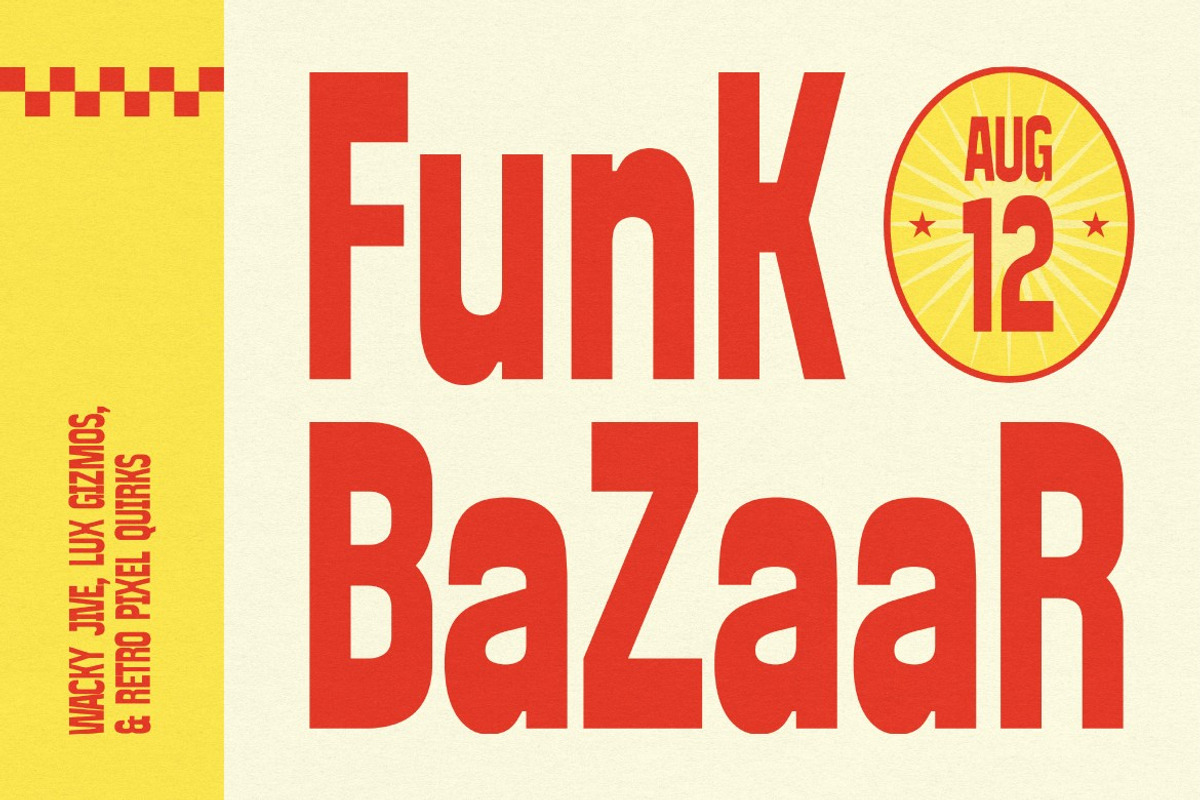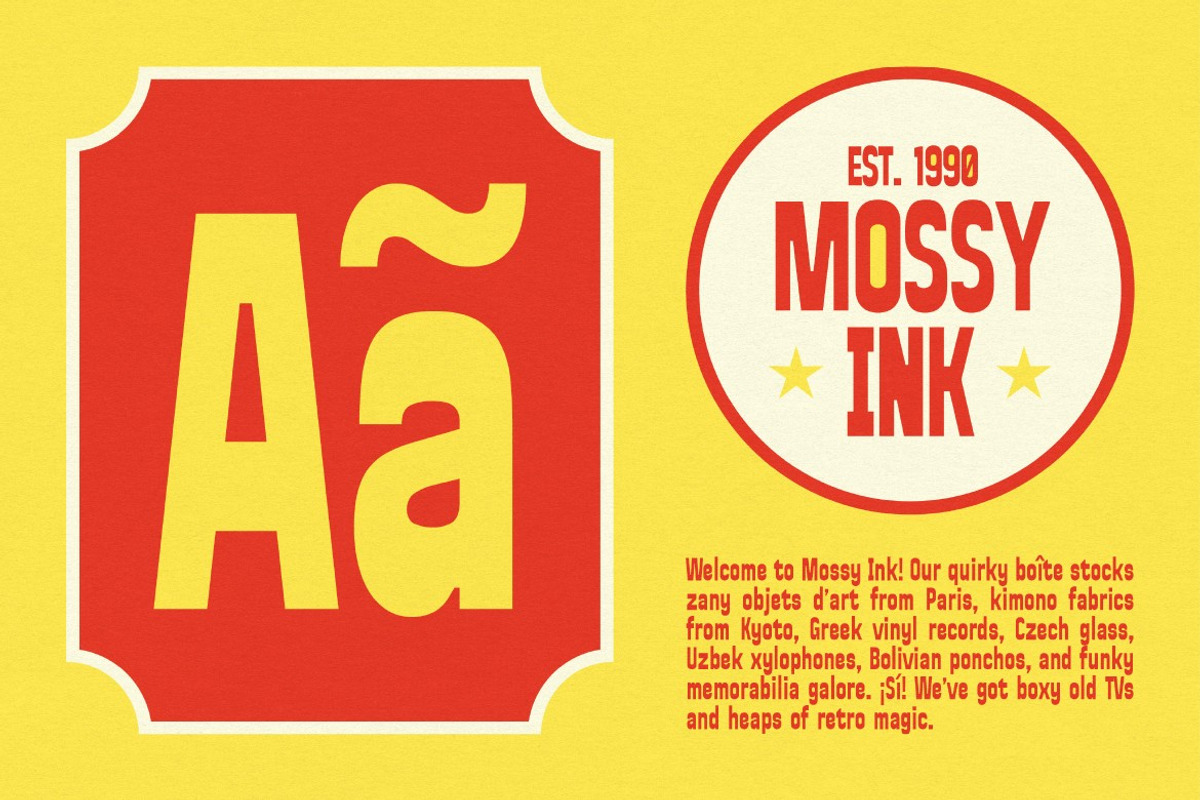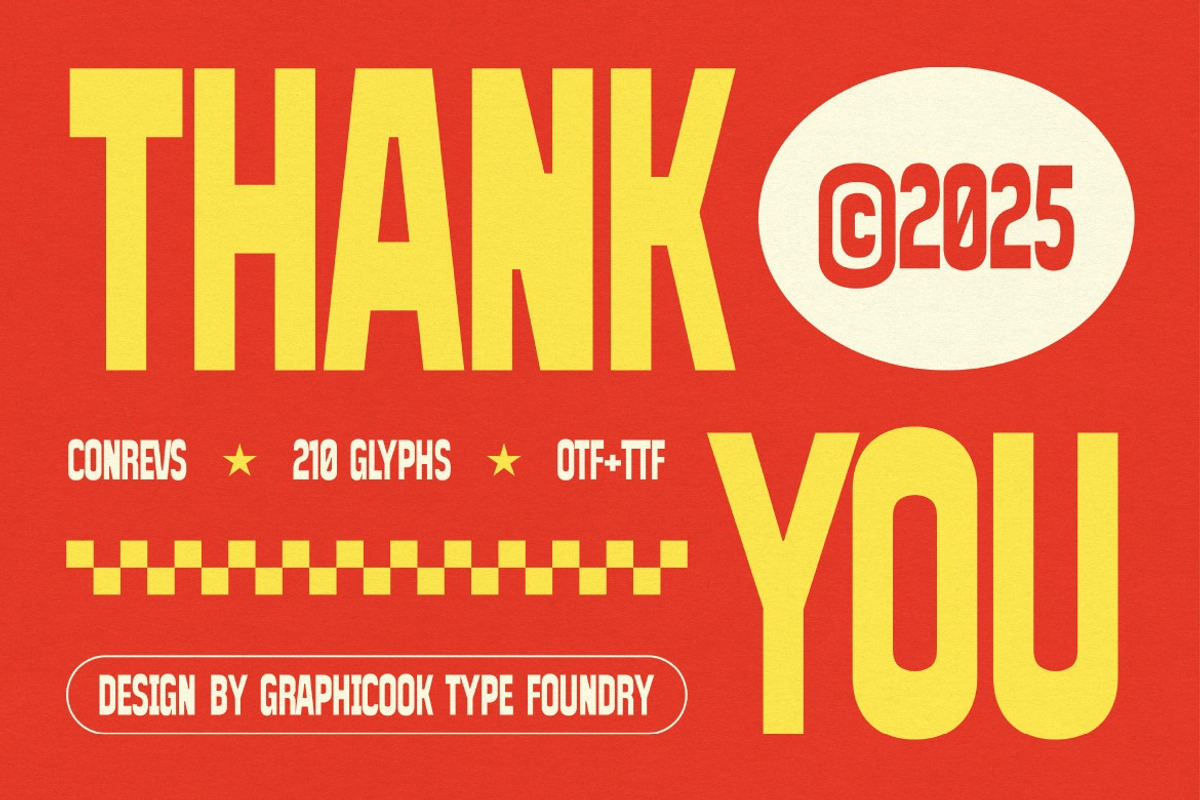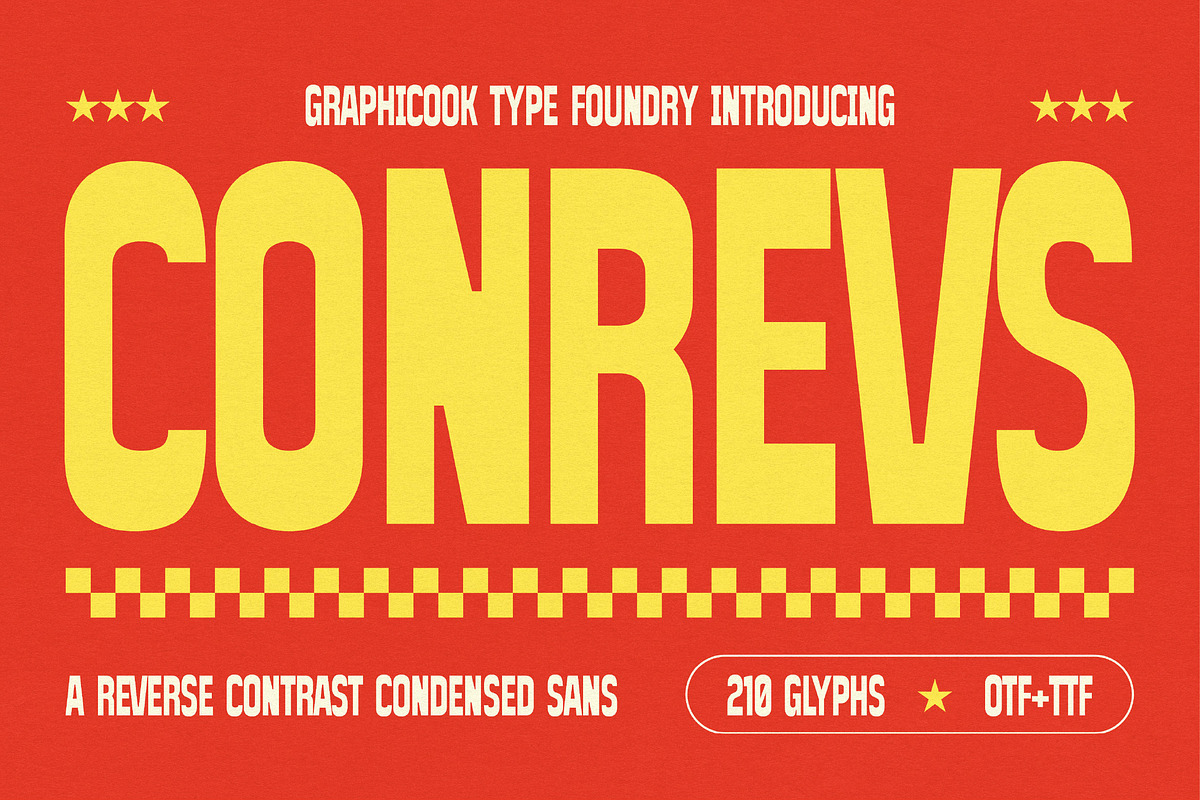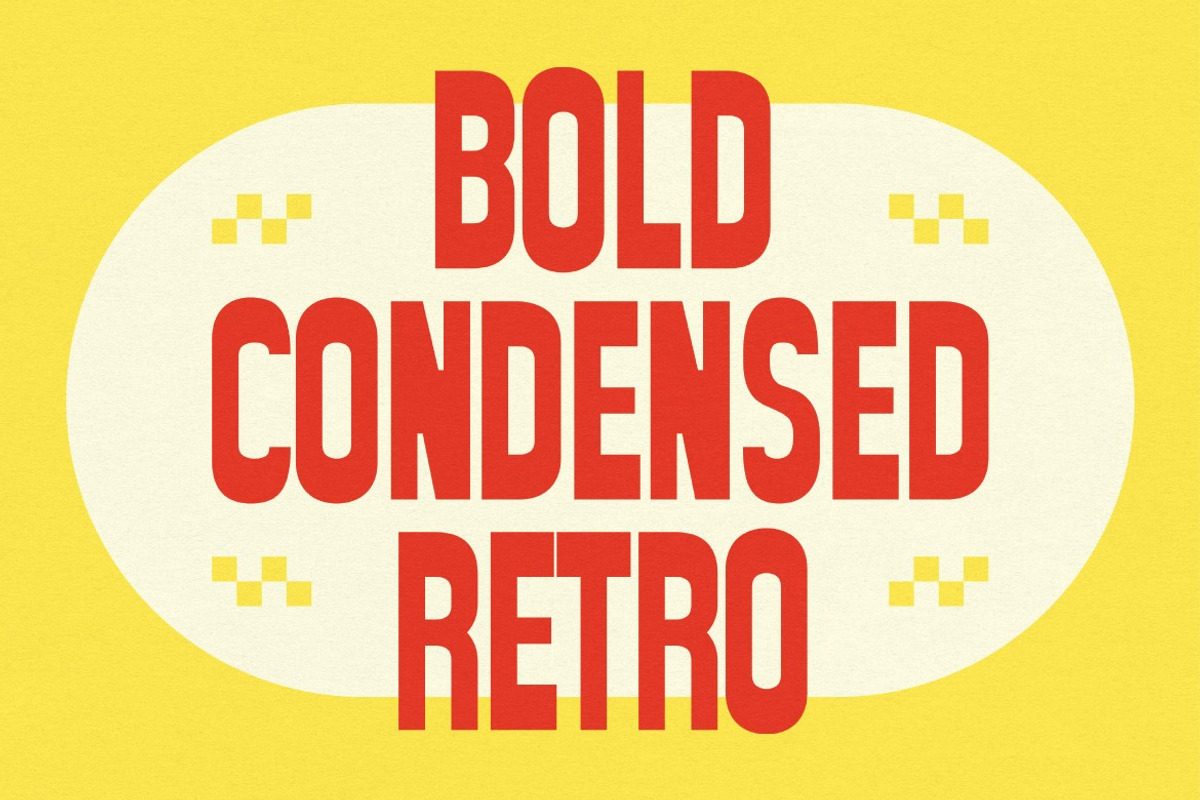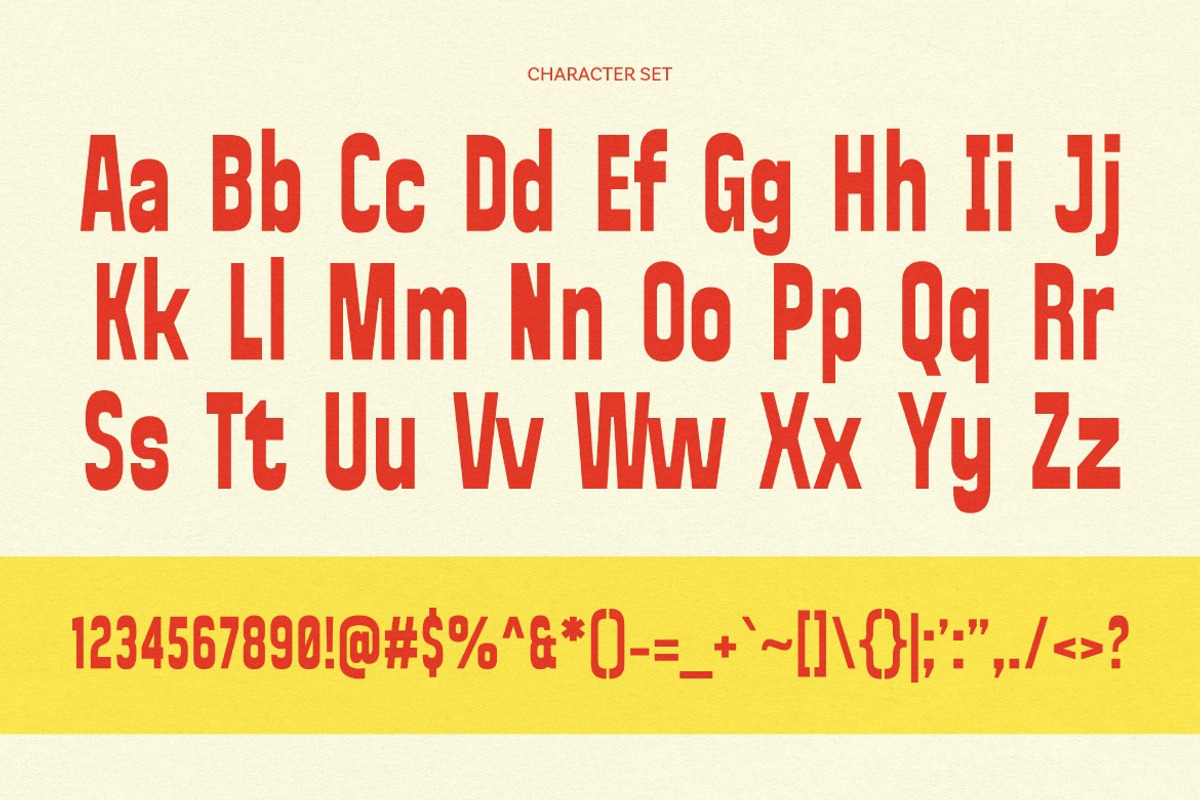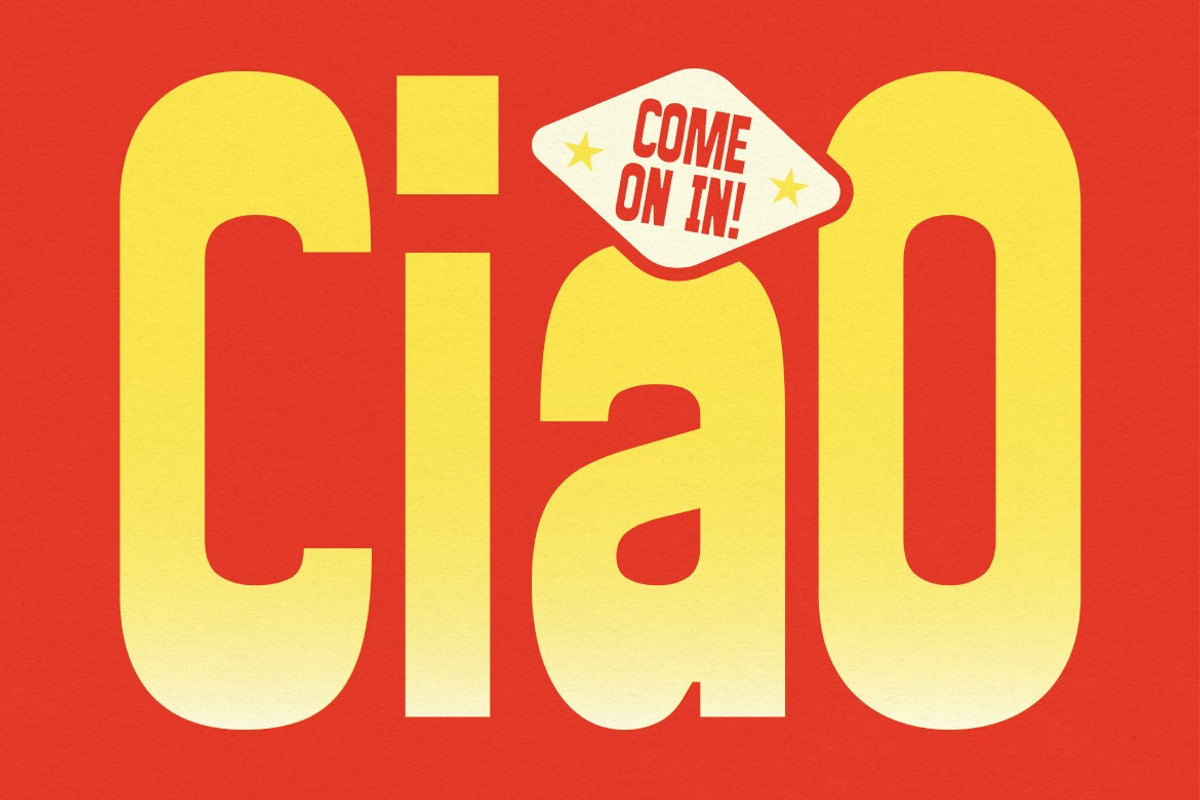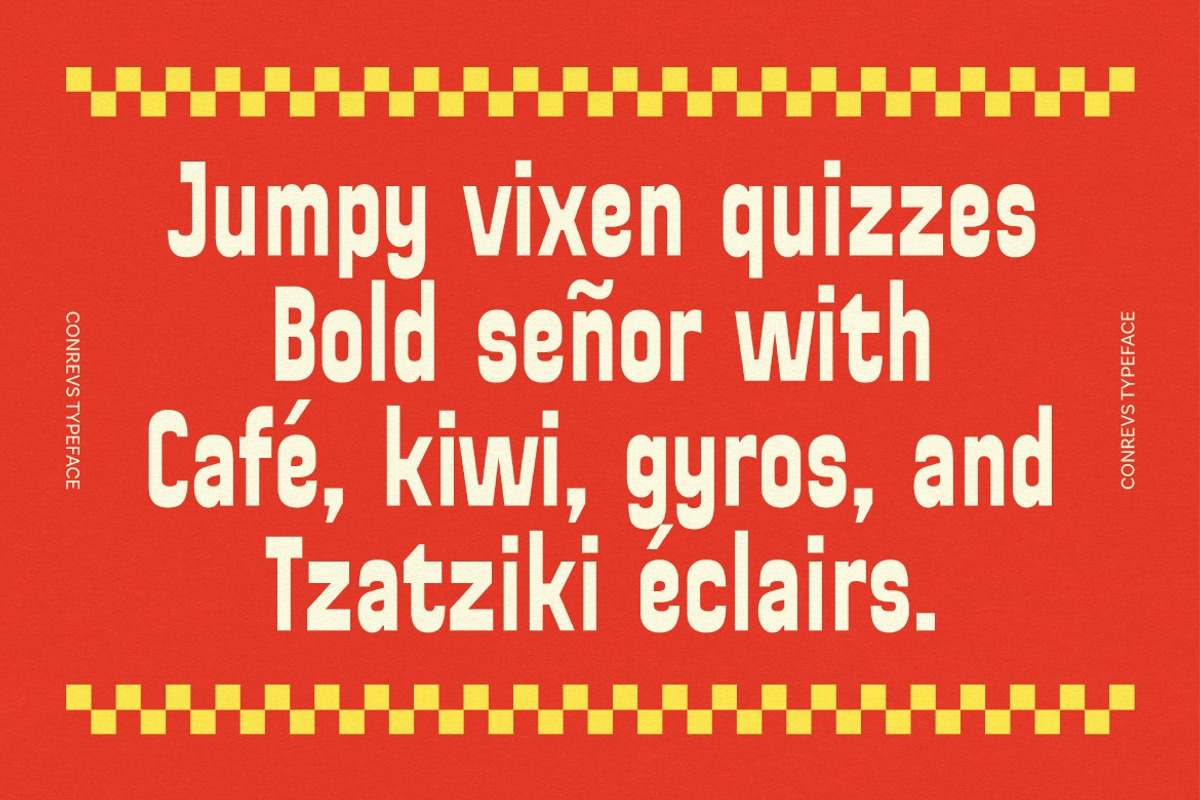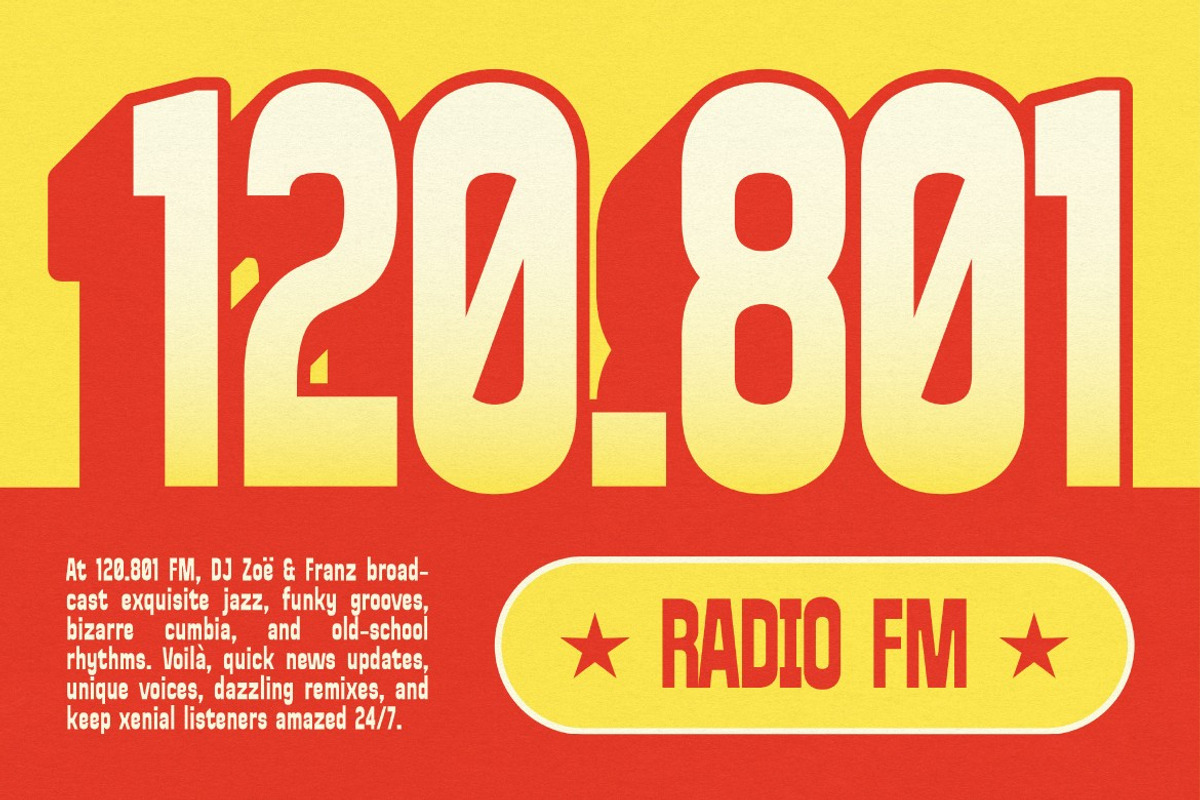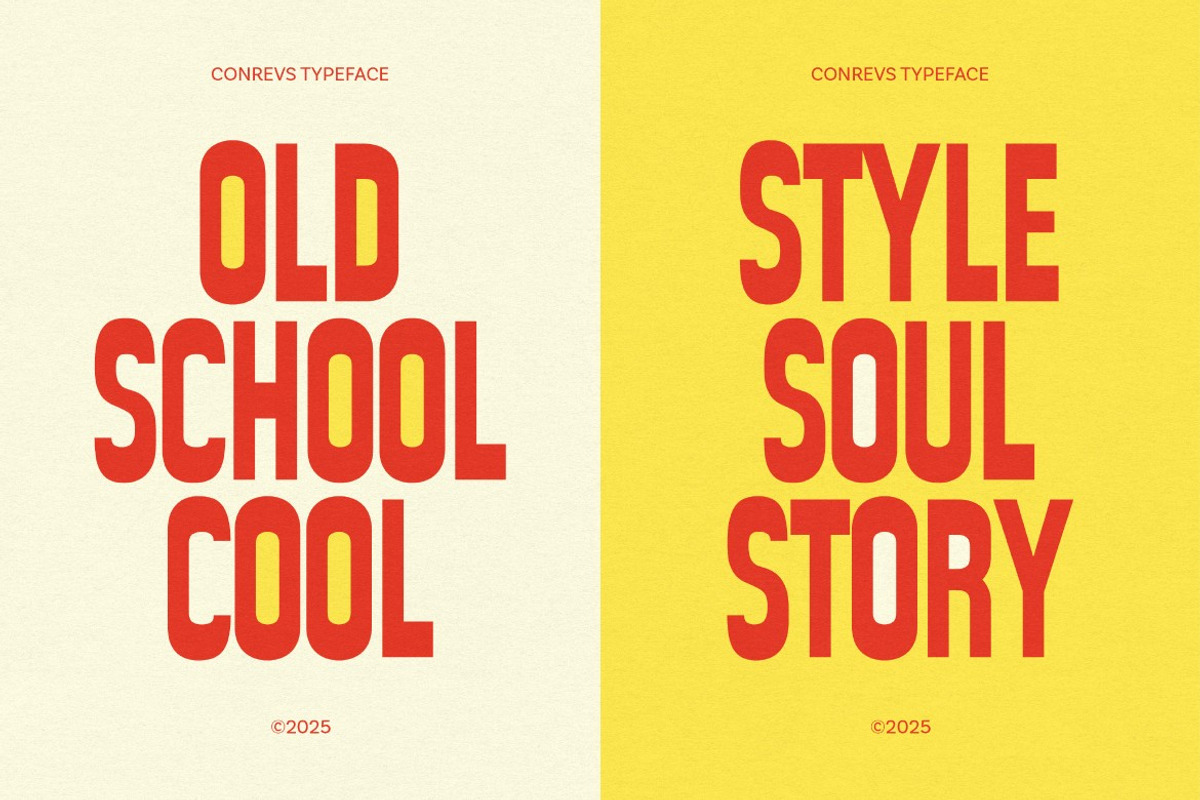
Conrevs
Conrevs is a bold reverse-contrast condensed font that merges modern energy with a touch of retro flair. Each character carries strong personality and movement, making it perfect for headlines, posters, and striking contemporary designs.
It is perfect for headlines, logotypes, magazines, packaging, quotes, movies, games, cover albums, book covers, and flyers, it's a perfect solution for creating eye-catching designs that stand out in any context.